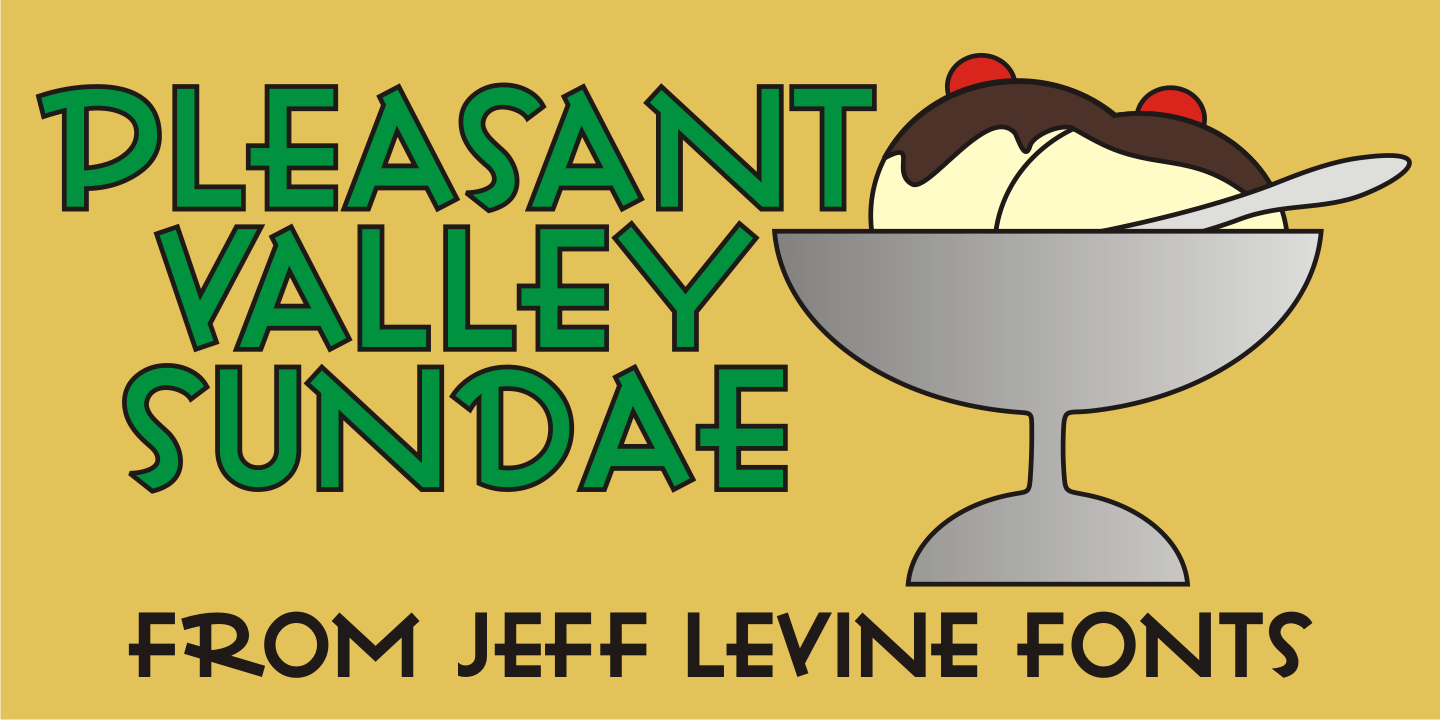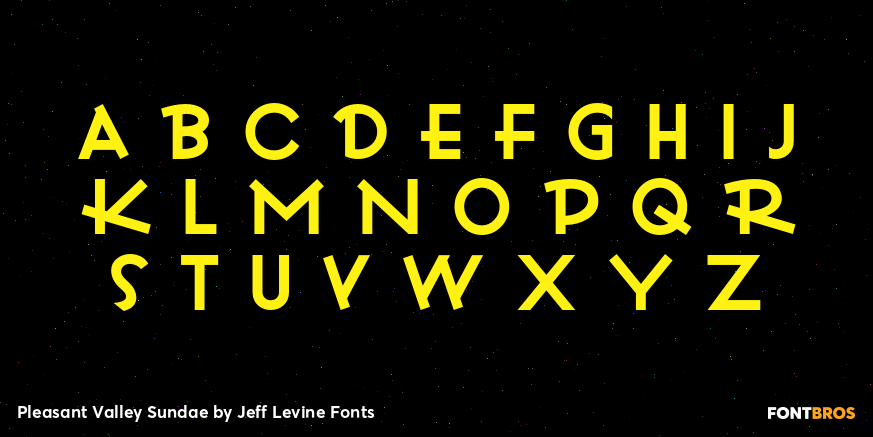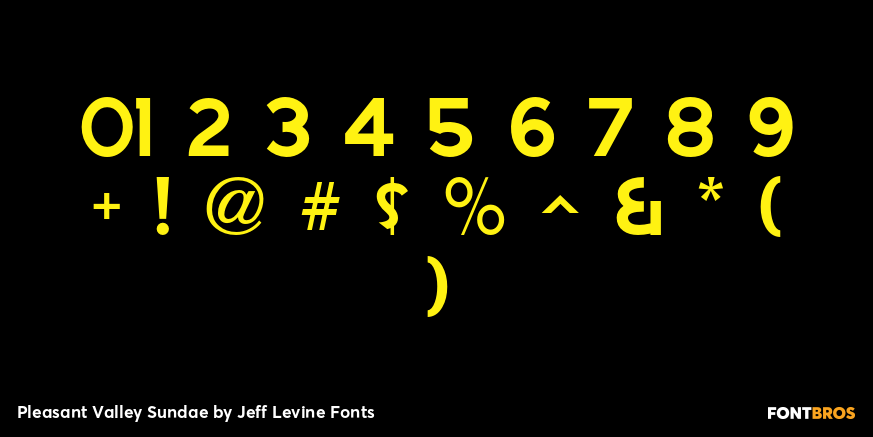
Pleasant Valley Sundae
It seems only fitting that Pleasant Valley Sundae JNL, a typeface re-drawn from hand lettering on a piece of vintage sheet music, should take its name as a pun on another song's title from a different era.
'Pleasant Valley Sunday' was a 1967 hit for the Monkees and was written by the legendary songwriting team of Carole King and the late Gerry Goffin; inspired in turn by a street they'd lived on named Pleasant Valley Way, in West Orange, New Jersey. The record made it to #3 on the pop charts.